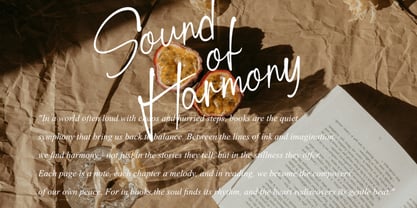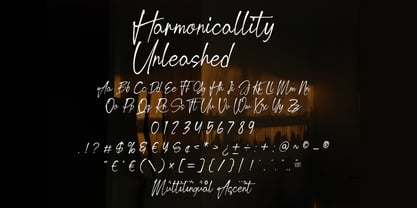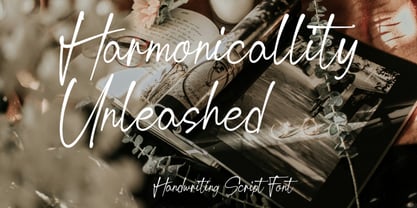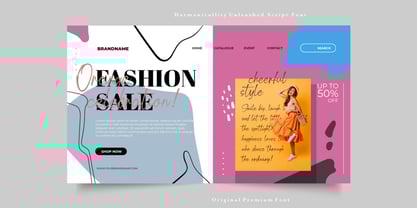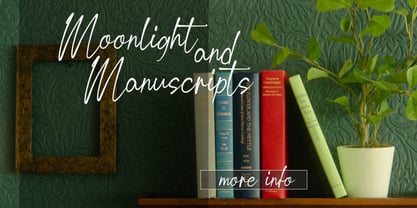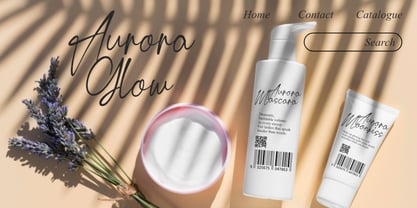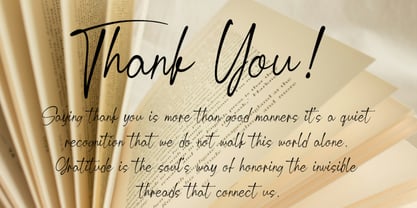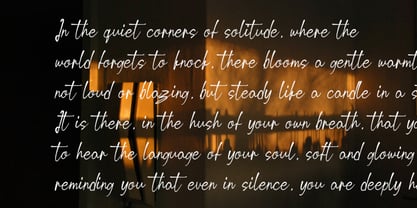
Harmonicallity Unleashed
by Bayuktx
The Harmonicallity Unleashed Font Family was designed by Bayu Aji Fais Mursid and published by Bayuktx. Harmonicallity Unleashed contains 1 styles.
Harmonicallity Unleashed Script Font, This font is made with a high premium quality level which you can use as flyers, quotes, posters, banners, packaging, merchandise, logotypes and much more.
FEATURES :
* Uppercase
* Lowercase
* Number
* Punctuation
* Multilingual
* PUA Encode
* Opentype